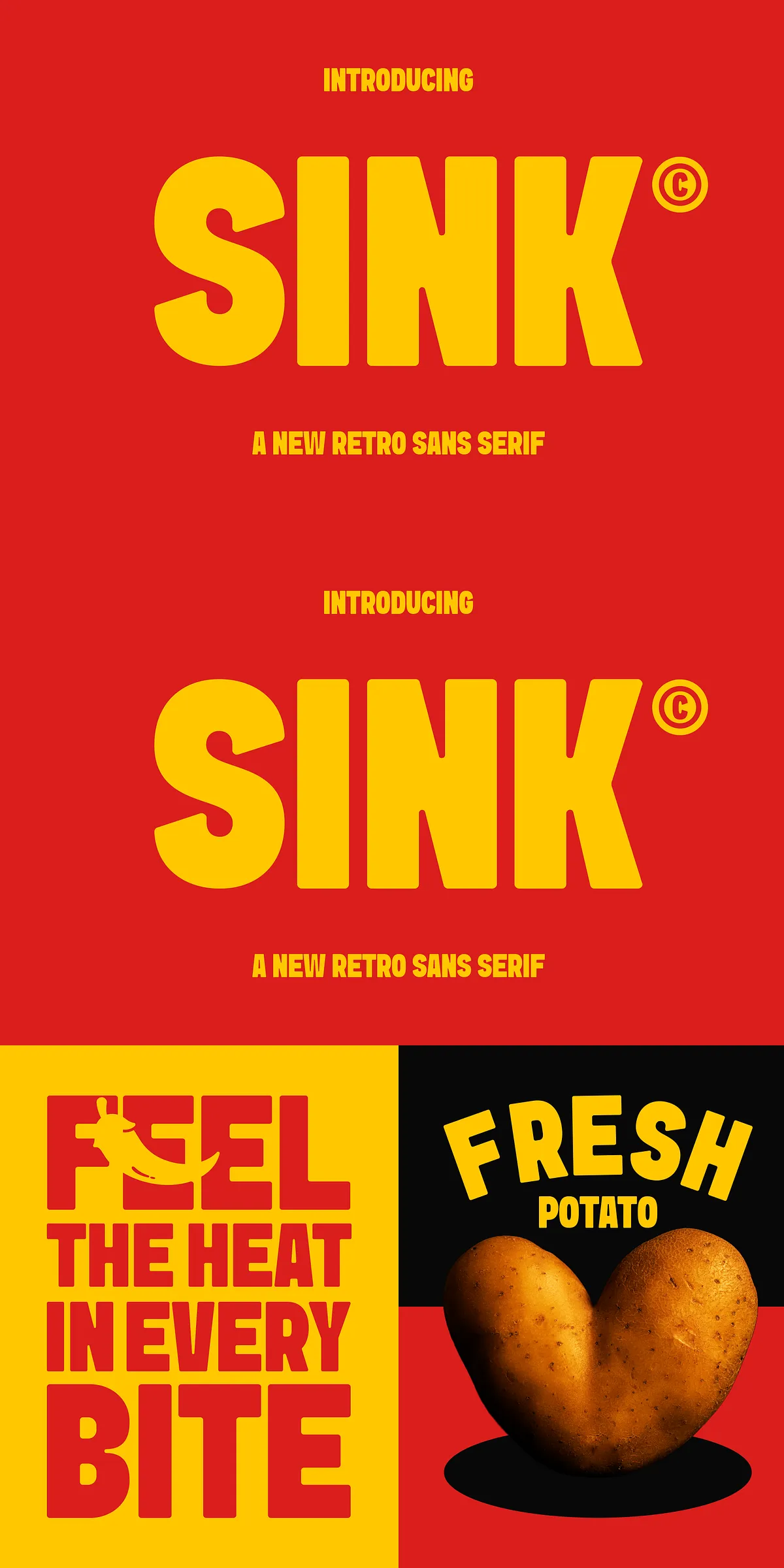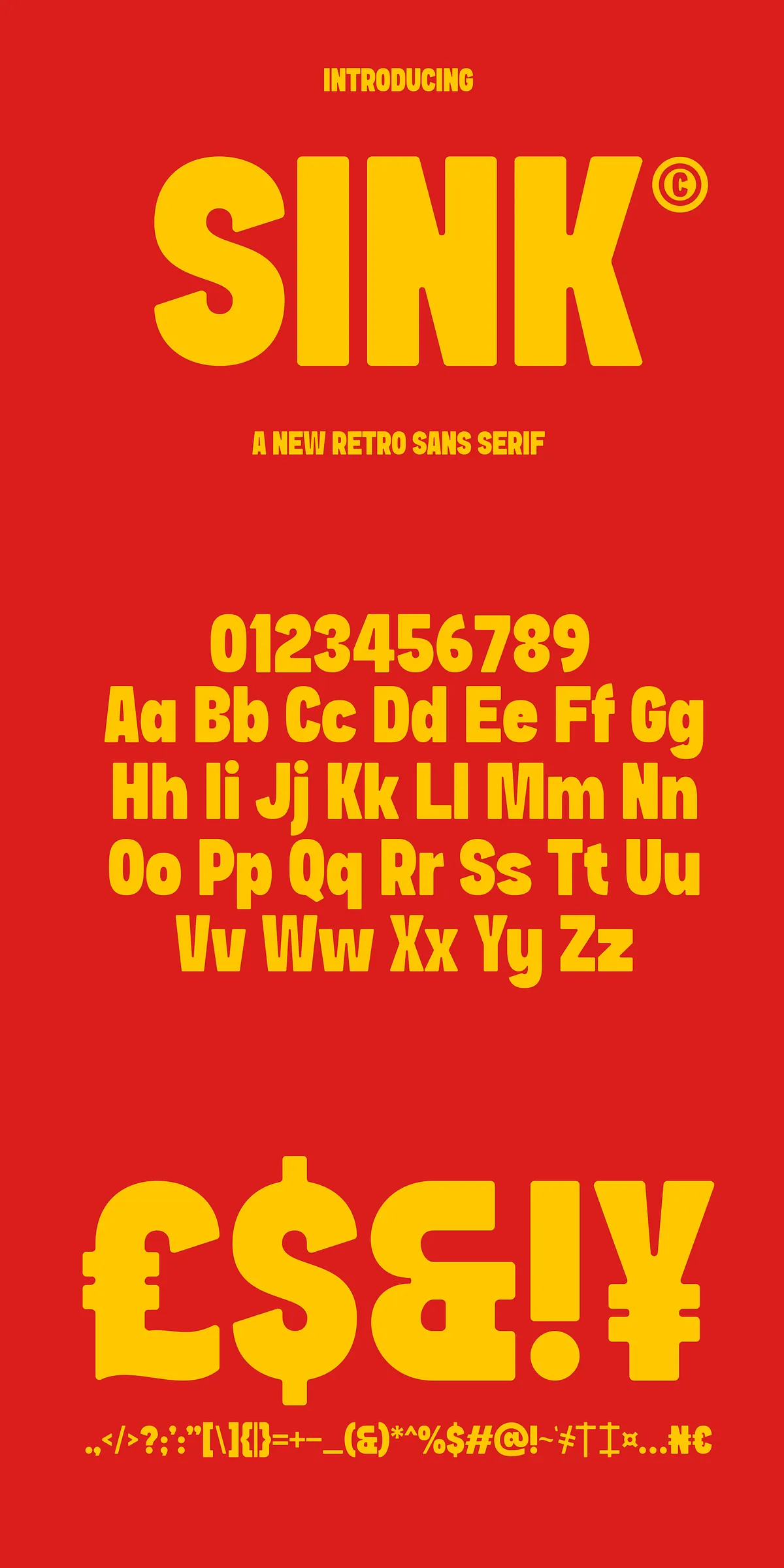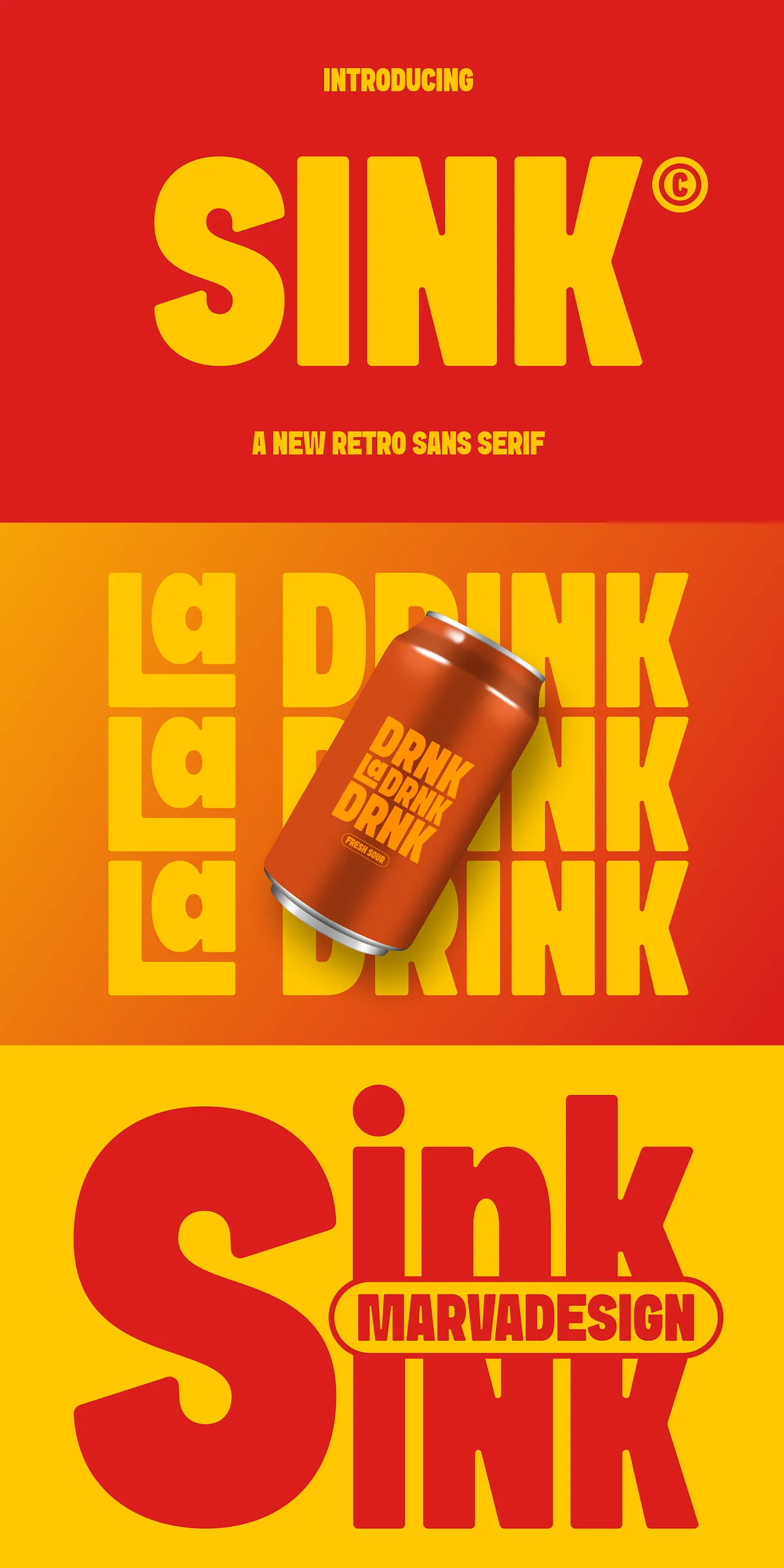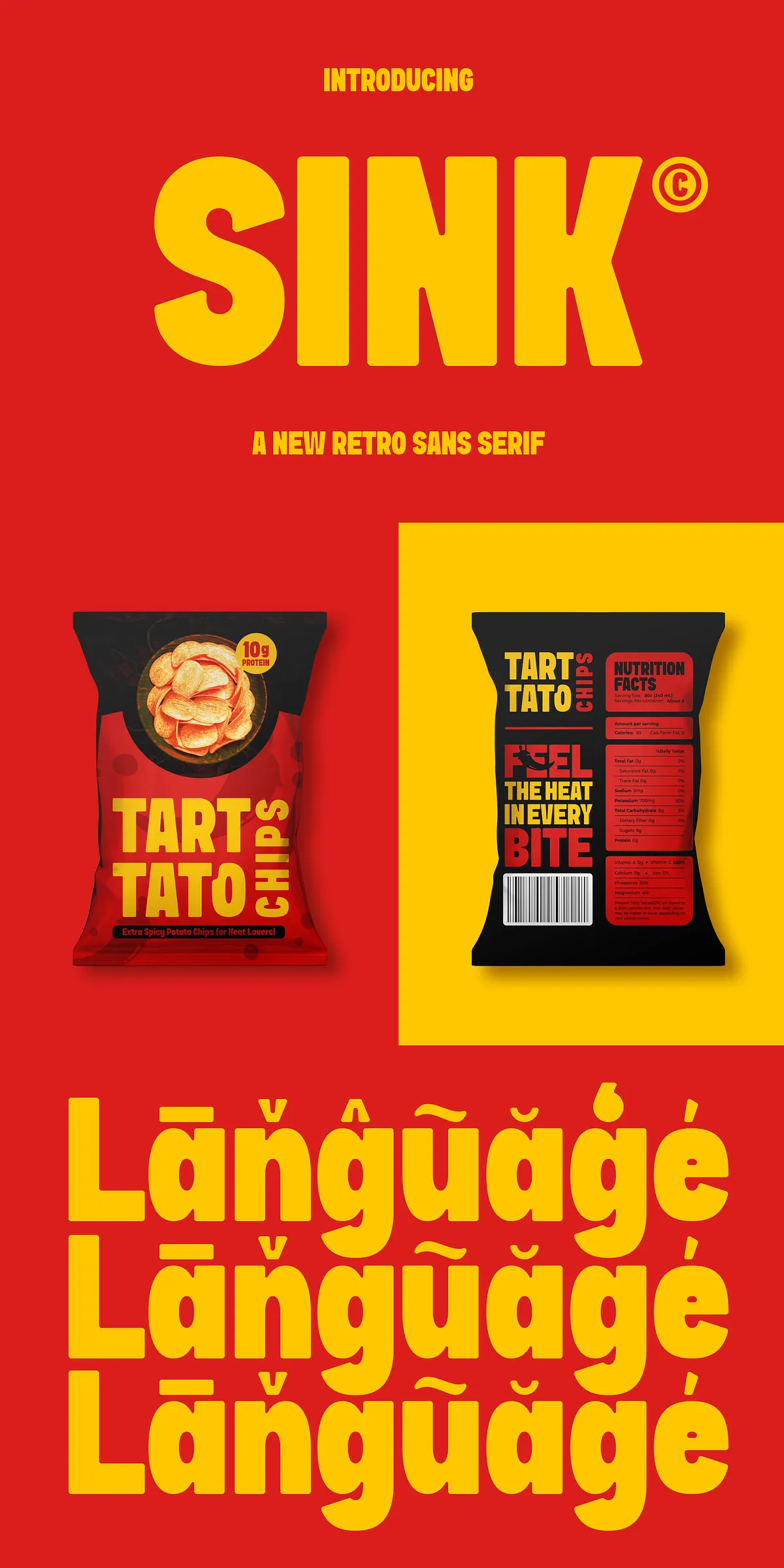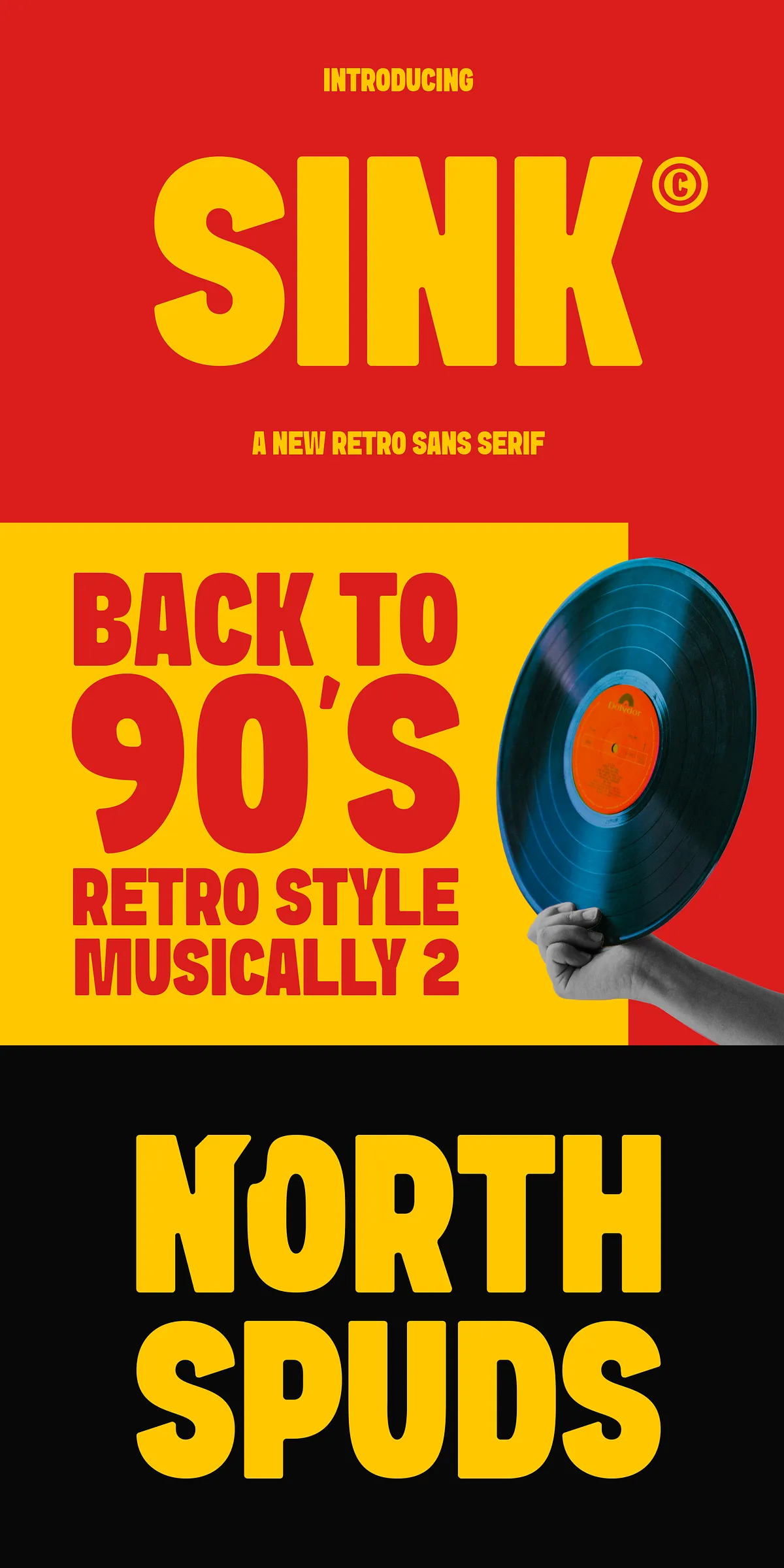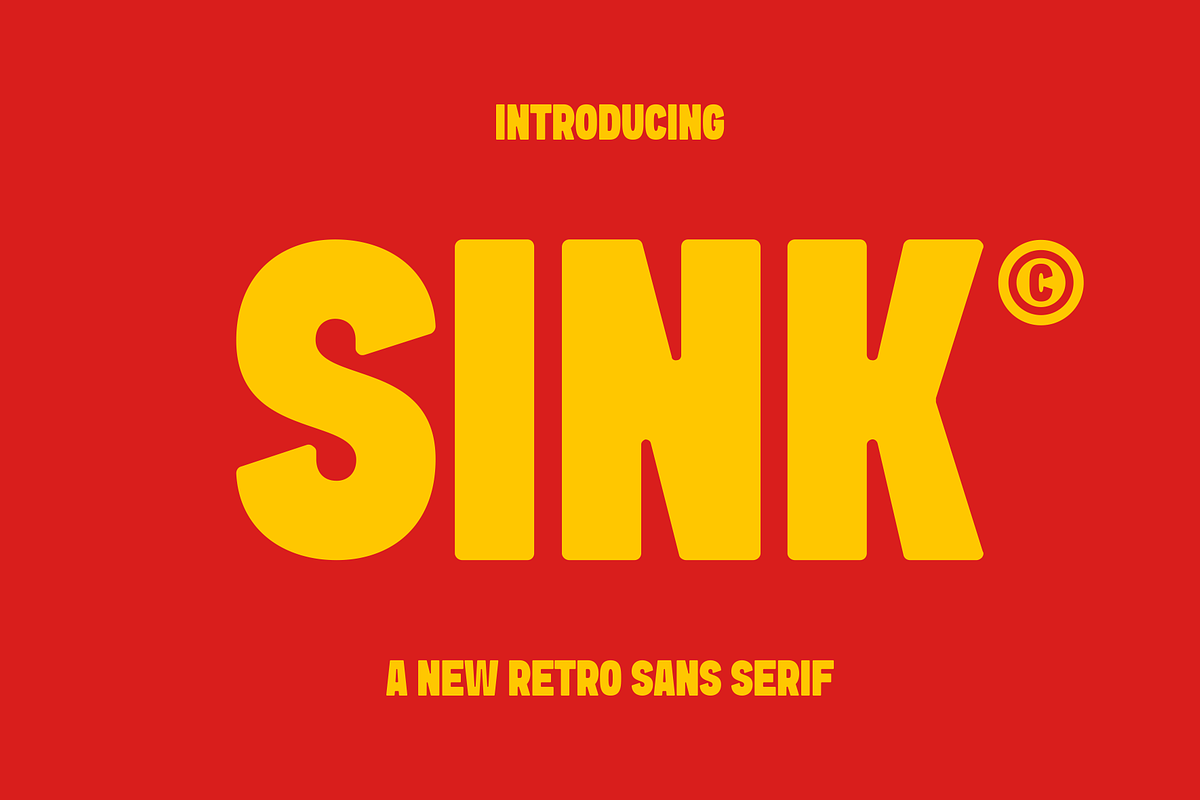
Sink
p>Step into the spotlight with Sink—a retro-inspired sans serif typeface that blends vintage flair with modern power. Engineered for impact, this font doesn’t just communicate words—it makes them unforgettable. With its substantial weight, strong geometry, and subtly rounded edges, Sink exudes confidence and presence, making it the ultimate choice for projects demanding visual authority.
Designed to Stand Out: Bold Visual Presence for Every Project
Whether you’re crafting a high-impact headline, designing eye-catching packaging, or building a brand identity, Sink delivers with undeniable strength. Its bold structure ensures that every letter commands attention, while its refined proportions prevent visual fatigue—even in long-form text.
Sink isn’t just heavy—it’s intentional. The slight rounding on corners and terminals introduces a touch of softness, balancing the font’s assertive design with approachable elegance. Unlike harsh, rigid typefaces, Sink feels alive, human, and responsive—like a vintage sign that has stood the test of time but still looks ready to perform.
Perfect for:
• Headlines & Titles: Dominate magazine covers, poster designs, and editorial layouts with commanding impact.
• Product Packaging: Elevate your brand’s physical presence on shelves with a bold, memorable font.
• Branding & Logos: Create striking identities that feel both classic and cutting-edge.
• Music & Event Promotions: Capture the energy of 80s-inspired aesthetics with a timeless, retro vibe.
Timeless Aesthetic, Modern Functionality
While rooted in vintage design principles, Sink is built for today’s workflows and platforms. It supports full uppercase and lowercase letters, numerals, punctuation, and a comprehensive set of symbols—ensuring your text remains crisp, clean, and professional across all applications.
Engineered for high-resolution clarity, Sink renders beautifully in both print and digital formats, maintaining sharpness at any size—from small business cards to massive outdoor signage.
Why Designers Love Sink
Unlock the Power of Retro Design with Confidence
Sink isn’t just a font—it’s a design philosophy. It embodies the confidence of the mid-century aesthetic, the clarity of modern typography, and the soul of vintage craftsmanship. It’s the typeface that doesn’t ask for permission—it takes it.